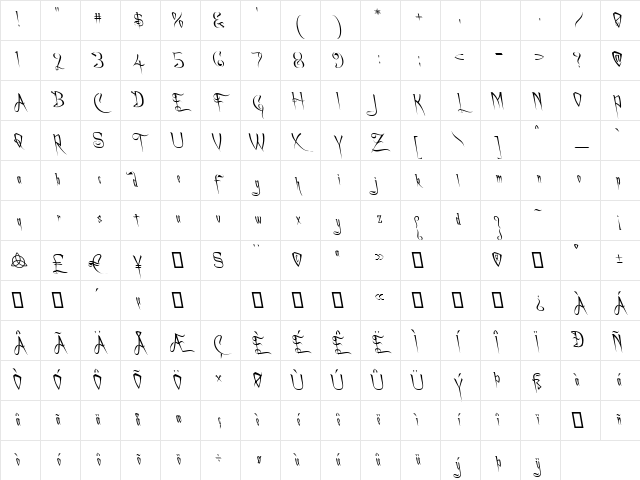
A Charming Font Leftleaning Regular
A Charming Font Leftleaning Family
Design Context for A Charming Font Leftleaning
A Charming Font Leftleaning is a composed and adaptable typeface that performs quietly and consistently across a wide range of design contexts.
Pro Tip: Use A Charming Font Leftleaning in both headline and body roles to test its range before committing to a single application.